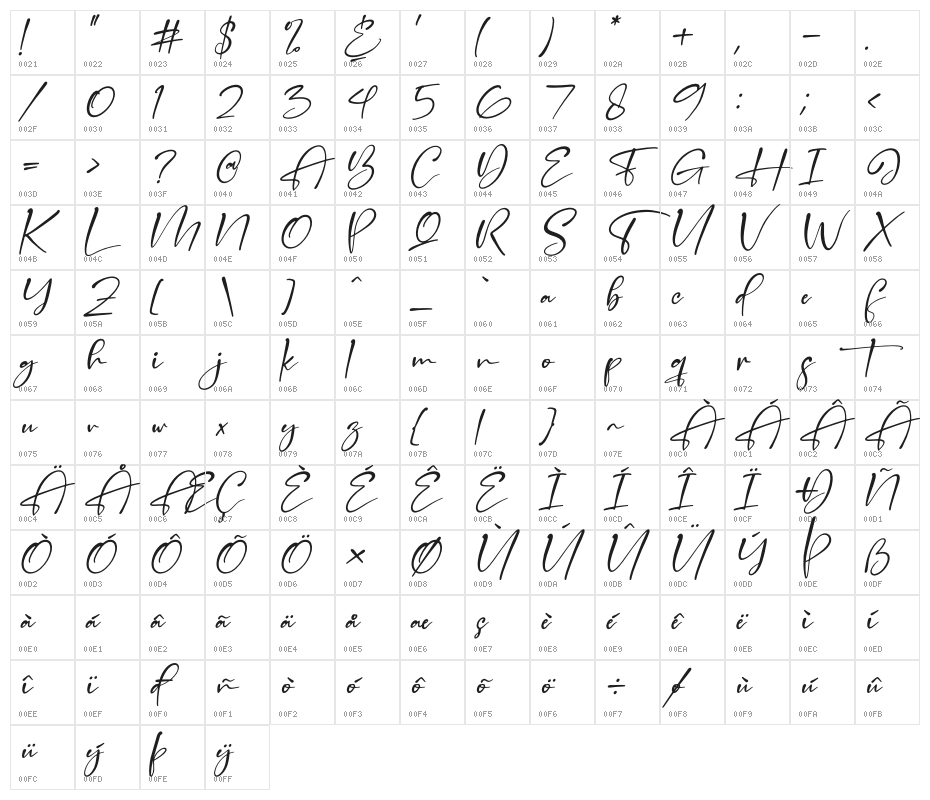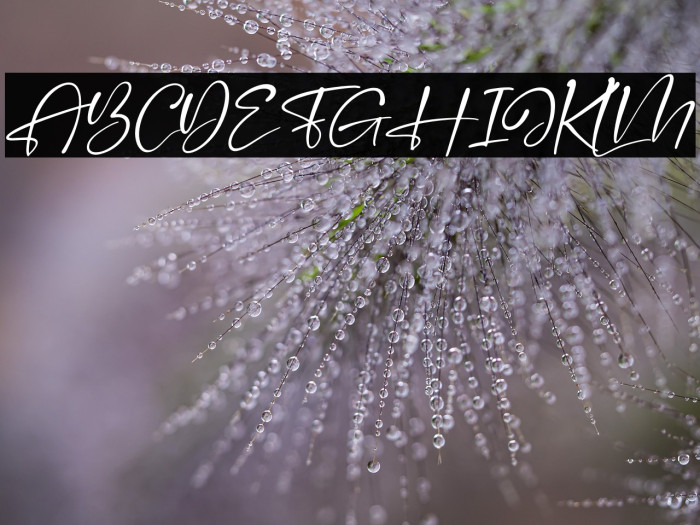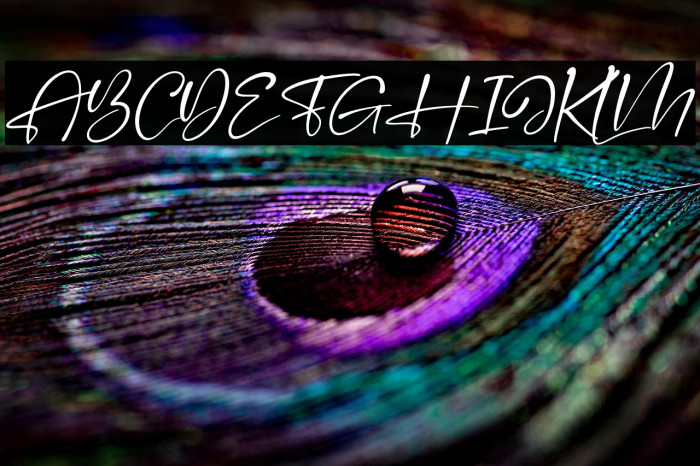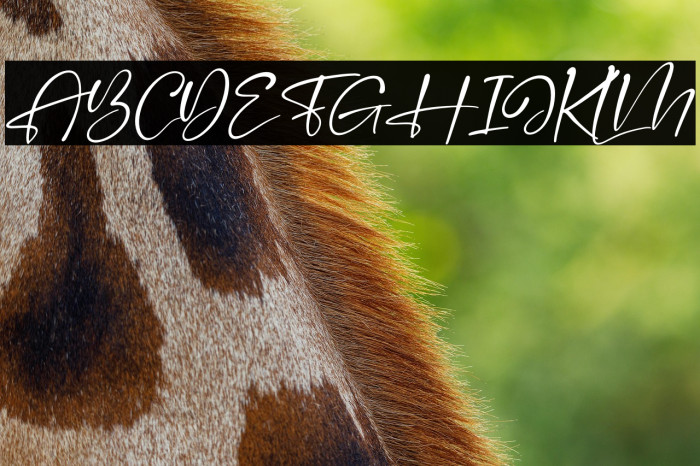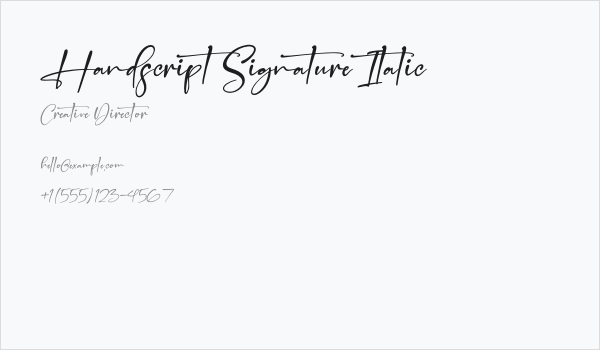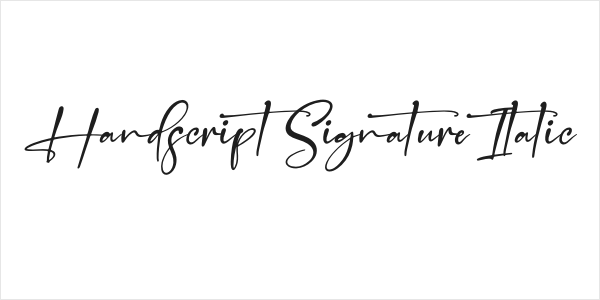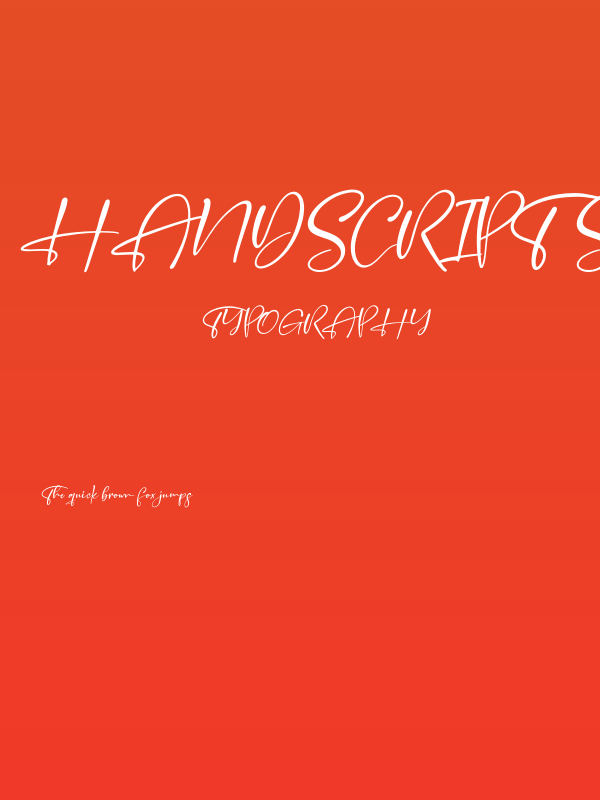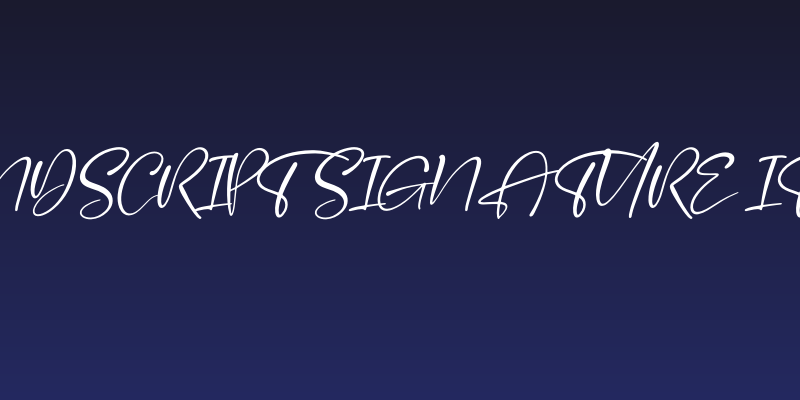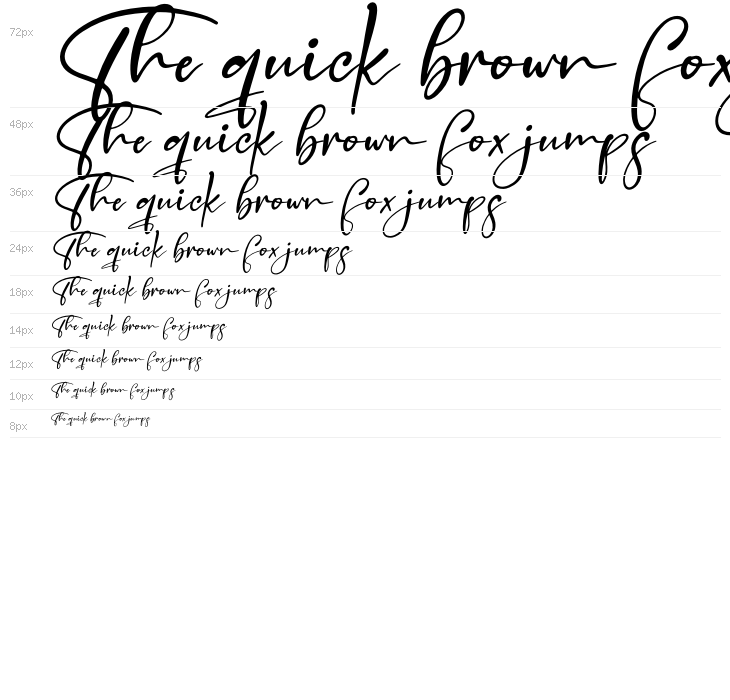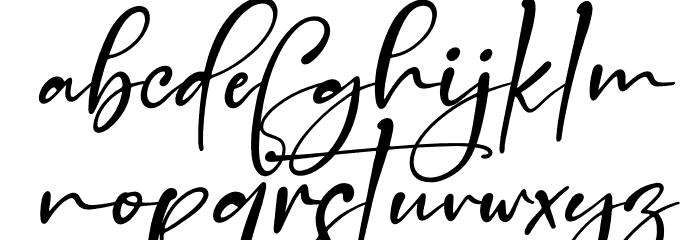
Handscript Signature Italic Font
Handscript Signature Italic Description
This font exudes a sophisticated and elegant handwritten style, characterized by its fluid and continuous strokes that mimic the natural flow of handwriting. The letters are gracefully connected, creating a seamless and harmonious appearance. The uppercase letters are bold and expressive, while the lowercase letters maintain a consistent and smooth flow. The numerals and special characters are crafted with the same attention to detail, ensuring a cohesive look throughout. This font is perfect for projects that require a personal touch, such as invitations, greeting cards, and branding materials.
| Proposed Projects | Ideal for wedding invitations, personal branding, greeting cards, and elegant stationery. |